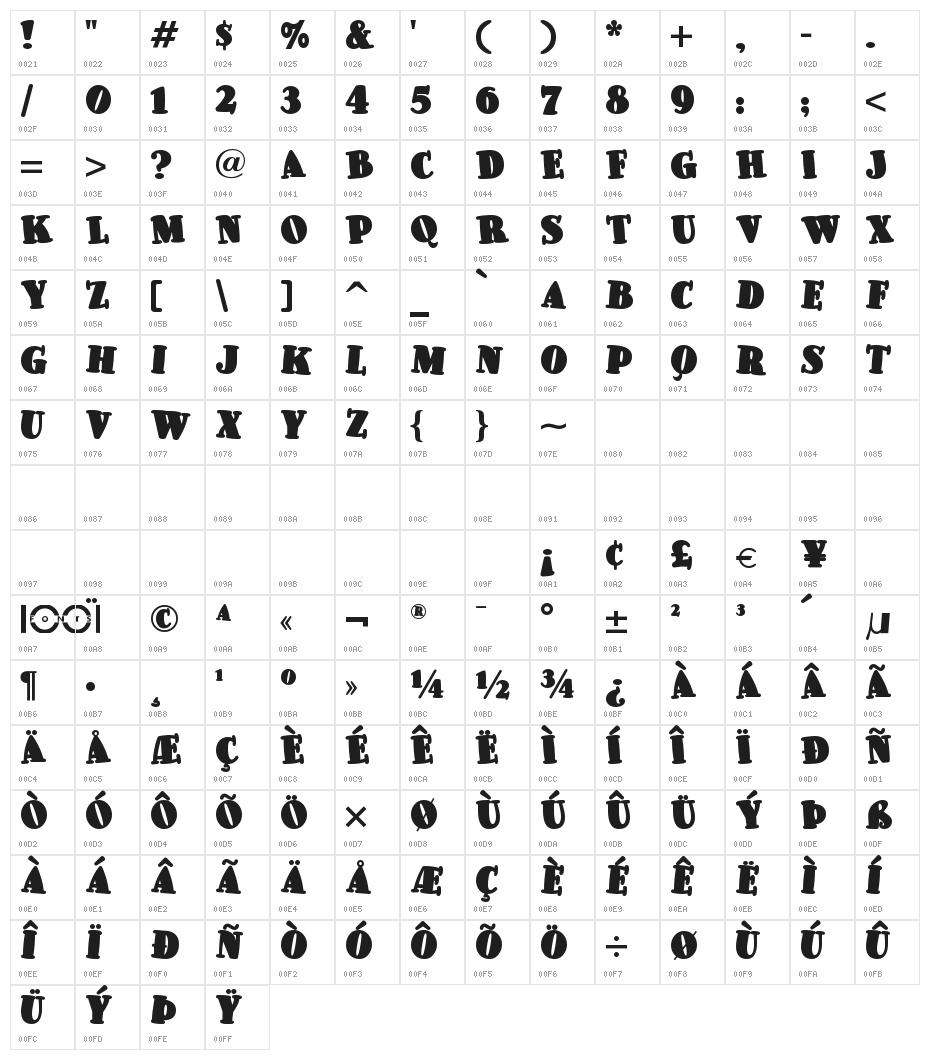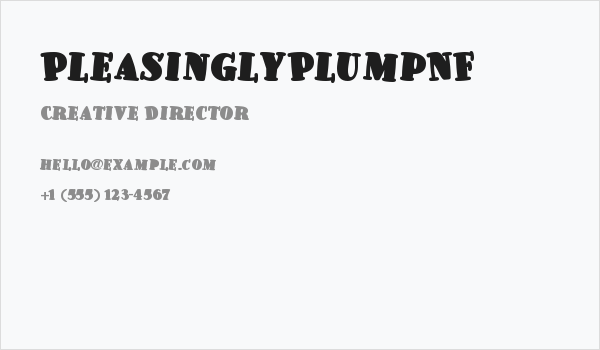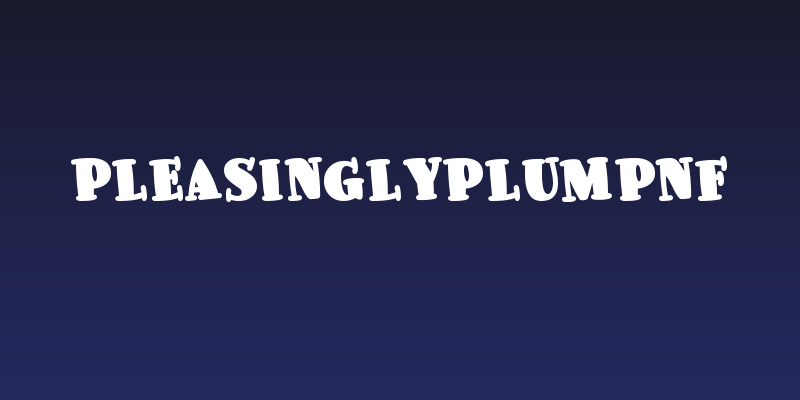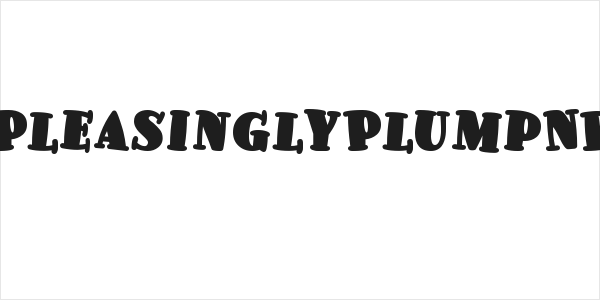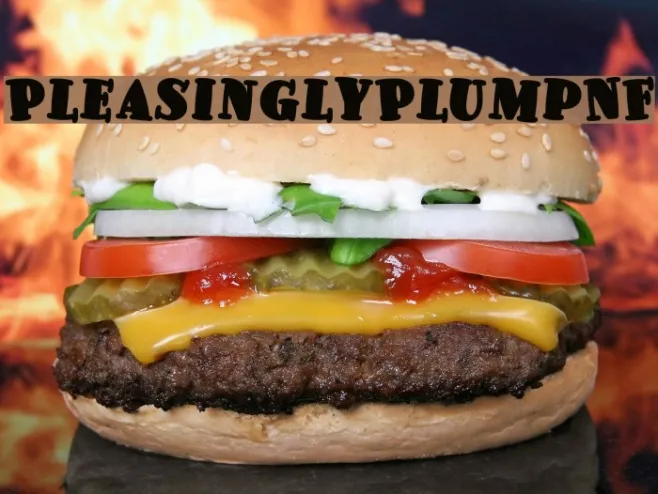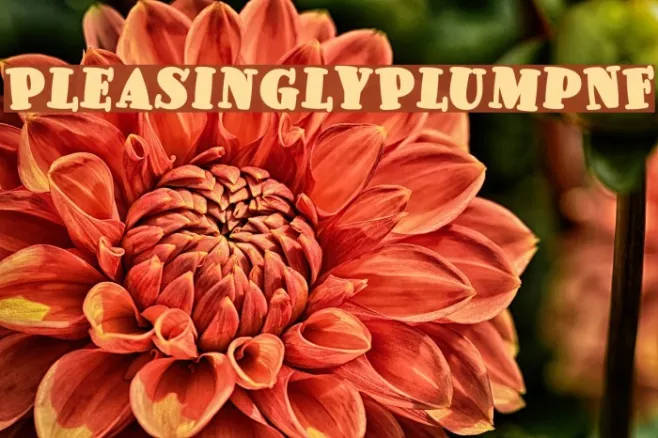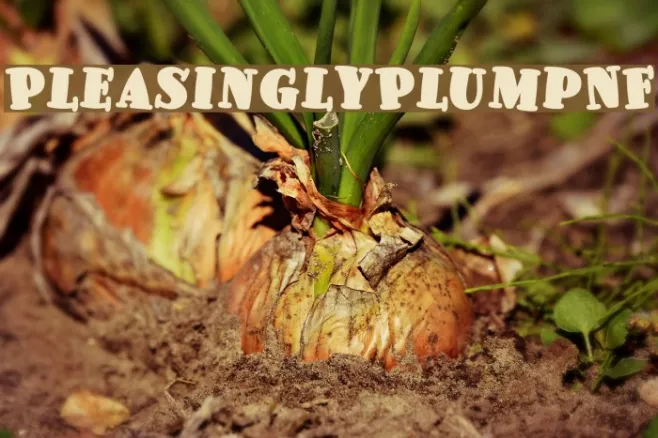
PleasinglyPlumpNF Font
PleasinglyPlumpNF Description
This font features a bold and playful style with thick, rounded strokes that give it a plump and friendly appearance. The characters are slightly condensed, enhancing the boldness and making it stand out. The uppercase and lowercase letters maintain a consistent weight, while the numerals and special characters are designed to match the overall aesthetic. The font's unique charm lies in its exaggerated curves and whimsical flair, making it ideal for projects that require a fun and engaging typeface.
| Proposed Projects | Ideal for children's books, playful branding, posters, and any design needing a fun and engaging typeface. |